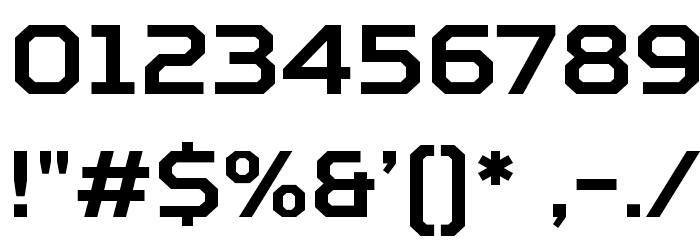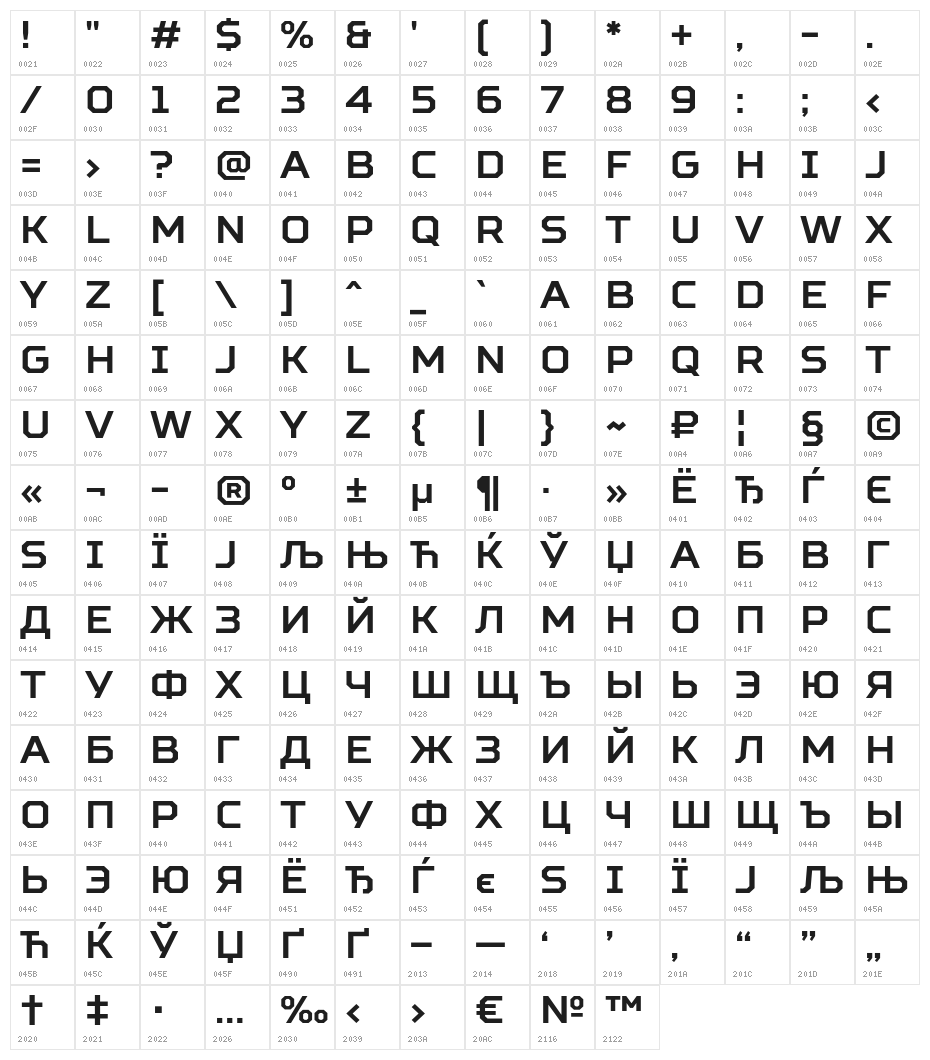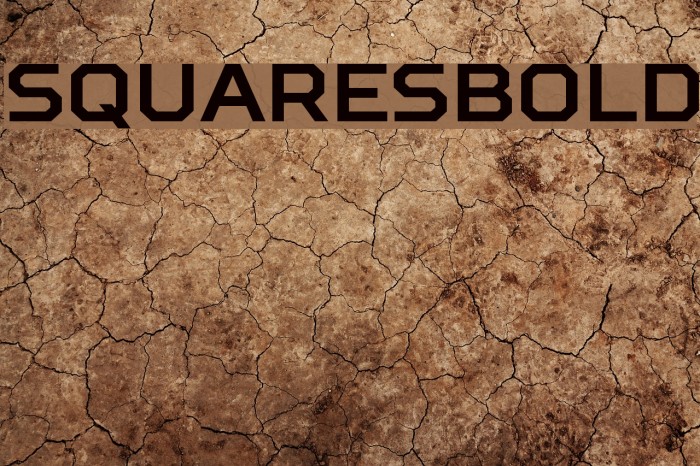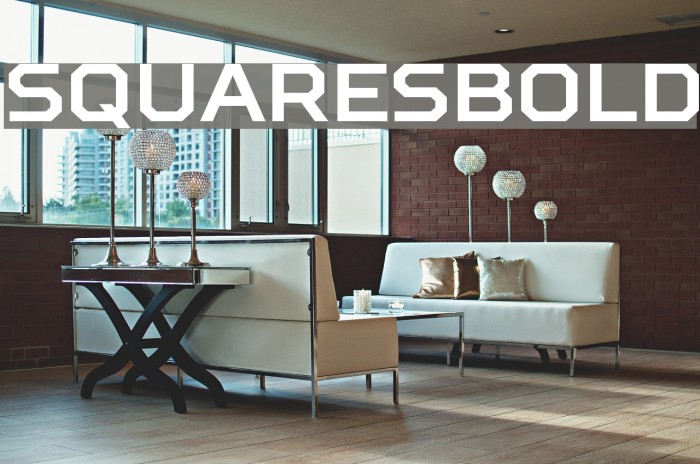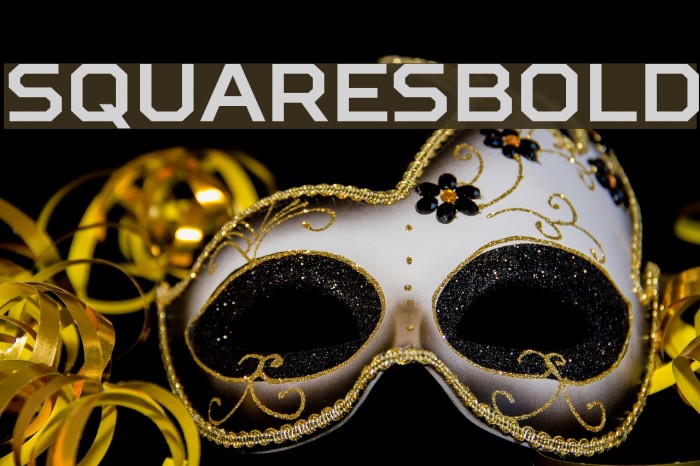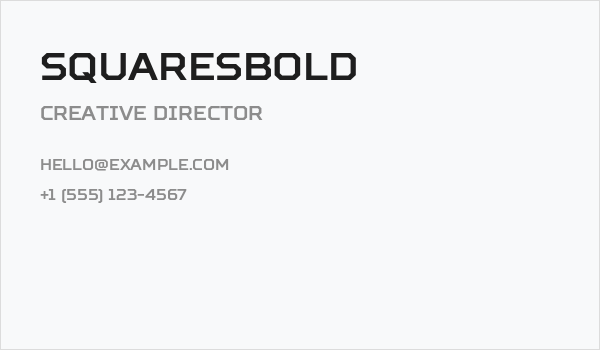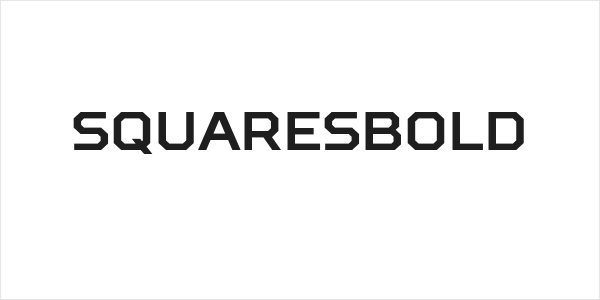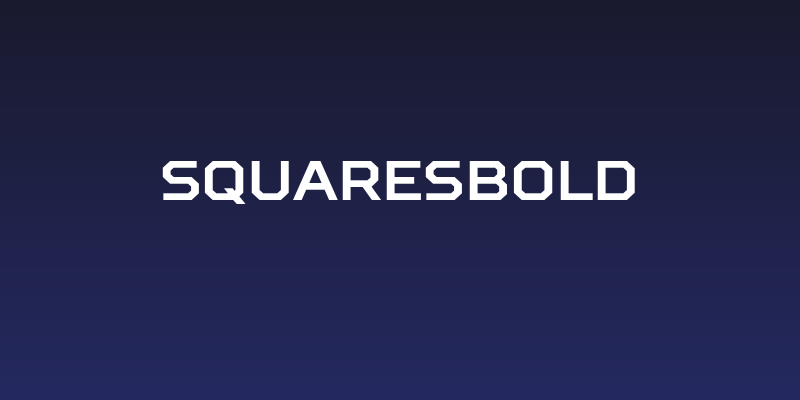
SquaresBold Font
SquaresBold Description
This font features a bold, geometric design with a strong, angular appearance. Each character is constructed with a consistent thickness, giving it a uniform and cohesive look. The edges are sharp and precise, creating a modern and industrial feel. The characters are well-spaced, ensuring readability while maintaining a compact form. This style is ideal for making a strong visual impact, suitable for both digital and print media. The font's boldness and geometric nature make it versatile for various design applications.
| Proposed Projects | Ideal for branding, posters, headlines, and digital interfaces where a strong, modern look is desired. |